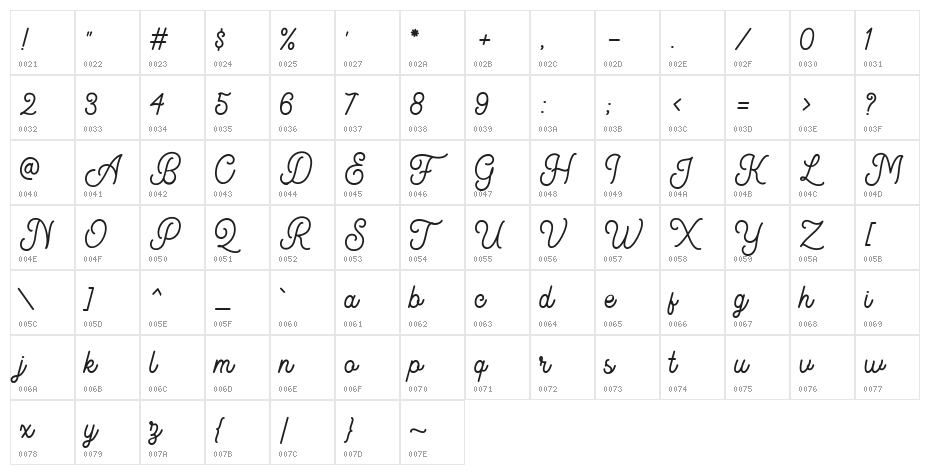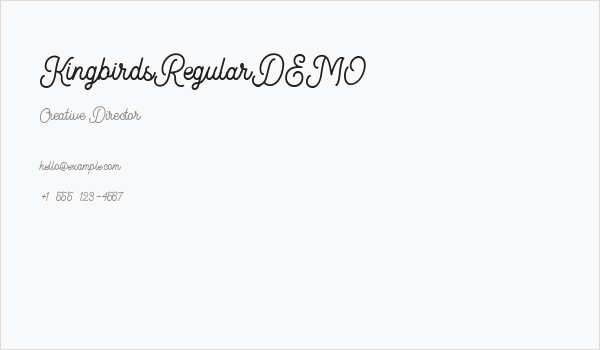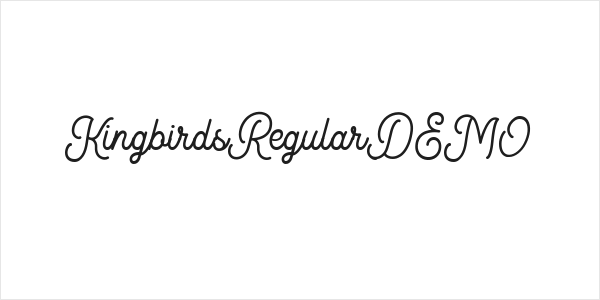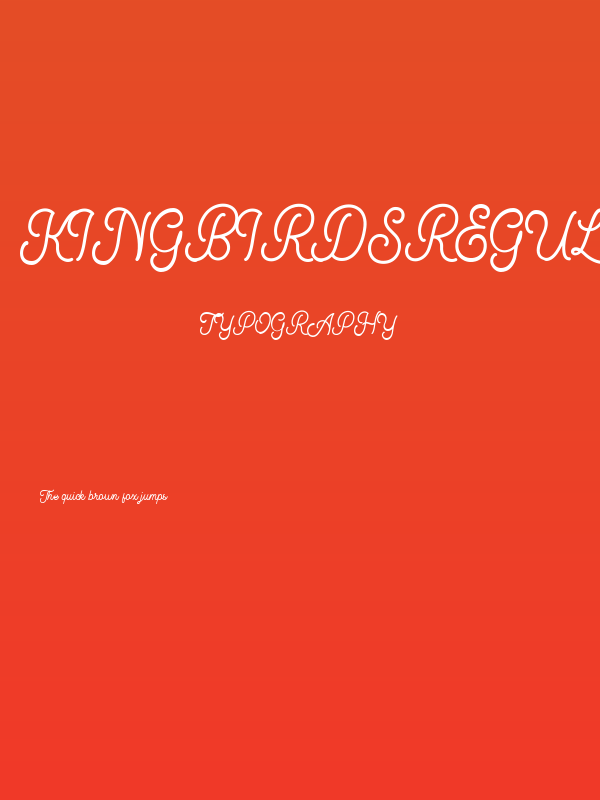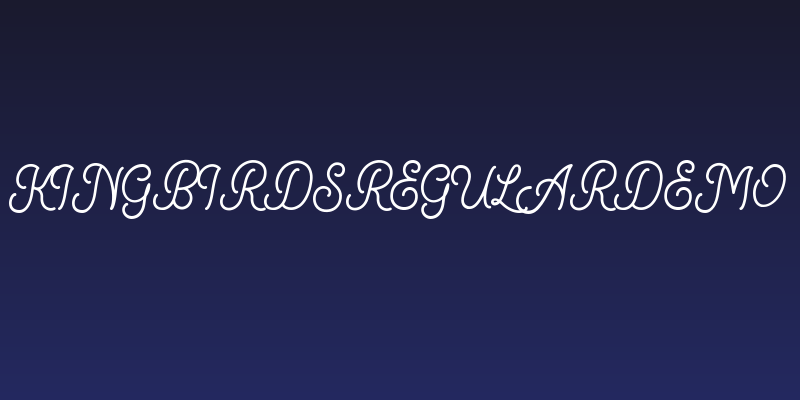
KingbirdsRegularDEMO Font
KingbirdsRegularDEMO Description
This font features a flowing, cursive style that mimics elegant handwriting. The characters are interconnected, creating a seamless and sophisticated look. The uppercase letters are slightly larger and more ornate, while the lowercase letters maintain a consistent and smooth flow. The numerals and special characters are designed to match the overall aesthetic, with rounded edges and a balanced appearance. This font exudes a sense of grace and formality, making it suitable for projects that require a touch of elegance.
| Proposed Projects | Ideal for wedding invitations, greeting cards, branding, and elegant signage. |